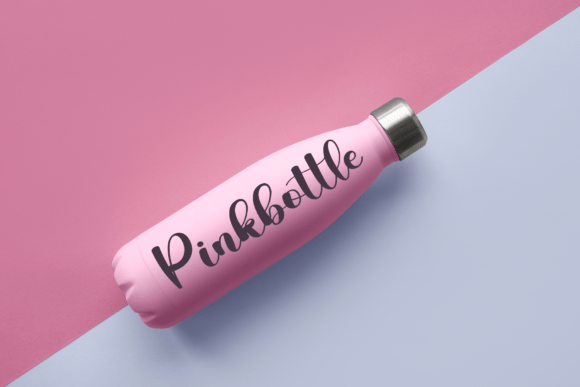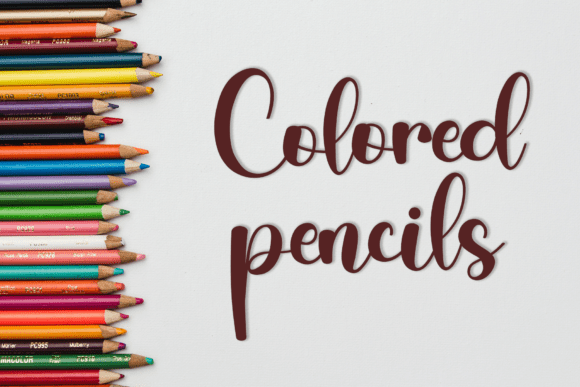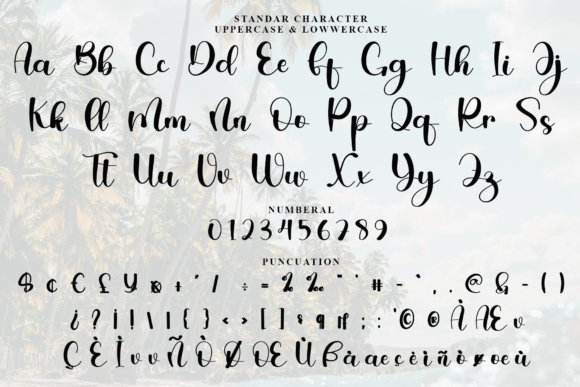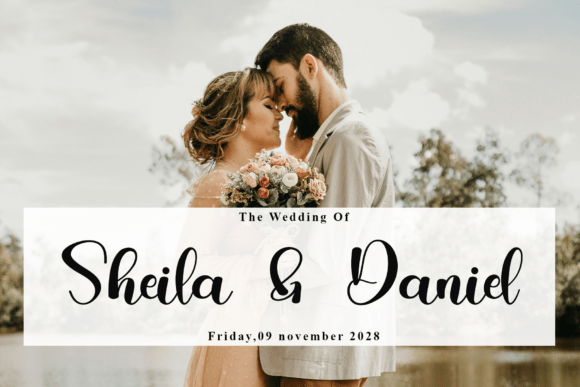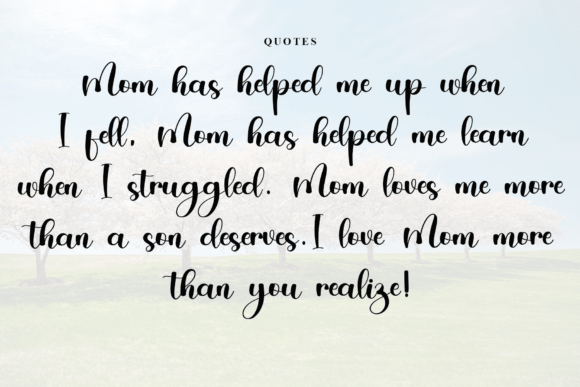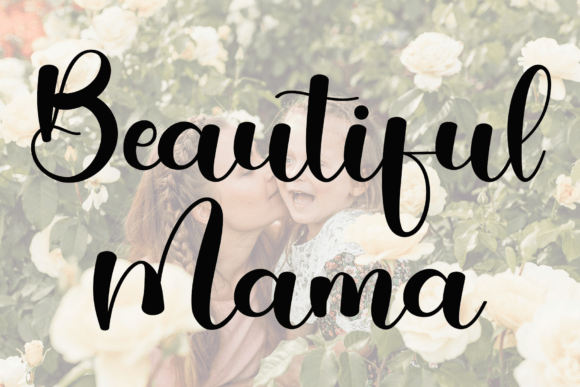
Introducing Happy Mother Font: Elevate Your Designs with Elegance and Style
Are you a designer or crafter looking for a font that adds a touch of sophistication and whimsy to your projects? Look no further than Happy Mother Font, a beautiful script font that is sure to elevate your designs to the next level. In this article, we’ll dive into the features and benefits of Happy Mother Font, and explore how it can be used to create stunning wedding invitations, greeting cards, logos, and more.
What is Happy Mother Font?
Happy Mother Font is a stylish and incredibly elegant script font that is perfect for adding a handwritten touch to your designs. With its flowing lines and delicate curves, this font is sure to capture the attention of your audience and leave a lasting impression. Whether you’re creating wedding invitations, thank you cards, quotes, or greeting cards, Happy Mother Font is the perfect choice.
Key Features of Happy Mother Font
- Elegant Script Style: Happy Mother Font features a beautiful script style that is both elegant and sophisticated.
- Handwritten Touch: This font adds a personal touch to your designs, making them look like they were written by hand.
- Versatile: Happy Mother Font can be used for a wide range of design projects, from wedding invitations to business cards.
- Easy to Read: Despite its elegant style, Happy Mother Font is easy to read, making it perfect for body text and captions.
Uses of Happy Mother Font
Happy Mother Font is a versatile font that can be used for a wide range of design projects. Here are some ideas to get you started:
- Wedding Invitations: Add a touch of elegance to your wedding invitations with Happy Mother Font.
- Thank You Cards: Show your appreciation with beautifully designed thank you cards featuring Happy Mother Font.
- Quotes: Create stunning quote graphics with Happy Mother Font, perfect for social media and blogs.
- Greeting Cards: Design beautiful greeting cards for special occasions like birthdays, anniversaries, and holidays.
- Logos: Use Happy Mother Font to create a unique and memorable logo for your business or brand.
- Business Cards: Add a touch of elegance to your business cards with Happy Mother Font.
Why Choose Happy Mother Font?
There are many fonts available that offer a similar style to Happy Mother Font, but here are a few reasons why Happy Mother Font stands out:
- Unique Style: Happy Mother Font has a unique and distinctive style that sets it apart from other script fonts.
- High-Quality: This font is designed with high-quality and precision, ensuring that it looks great in any design.
Tips for Using Happy Mother Font
Here are a few tips for using Happy Mother Font in your designs:
- Pair with a Sans Serif Font: Pair Happy Mother Font with a sans serif font for a beautiful contrast.
- Use for Headings: Use Happy Mother Font for headings and titles to add a touch of elegance.